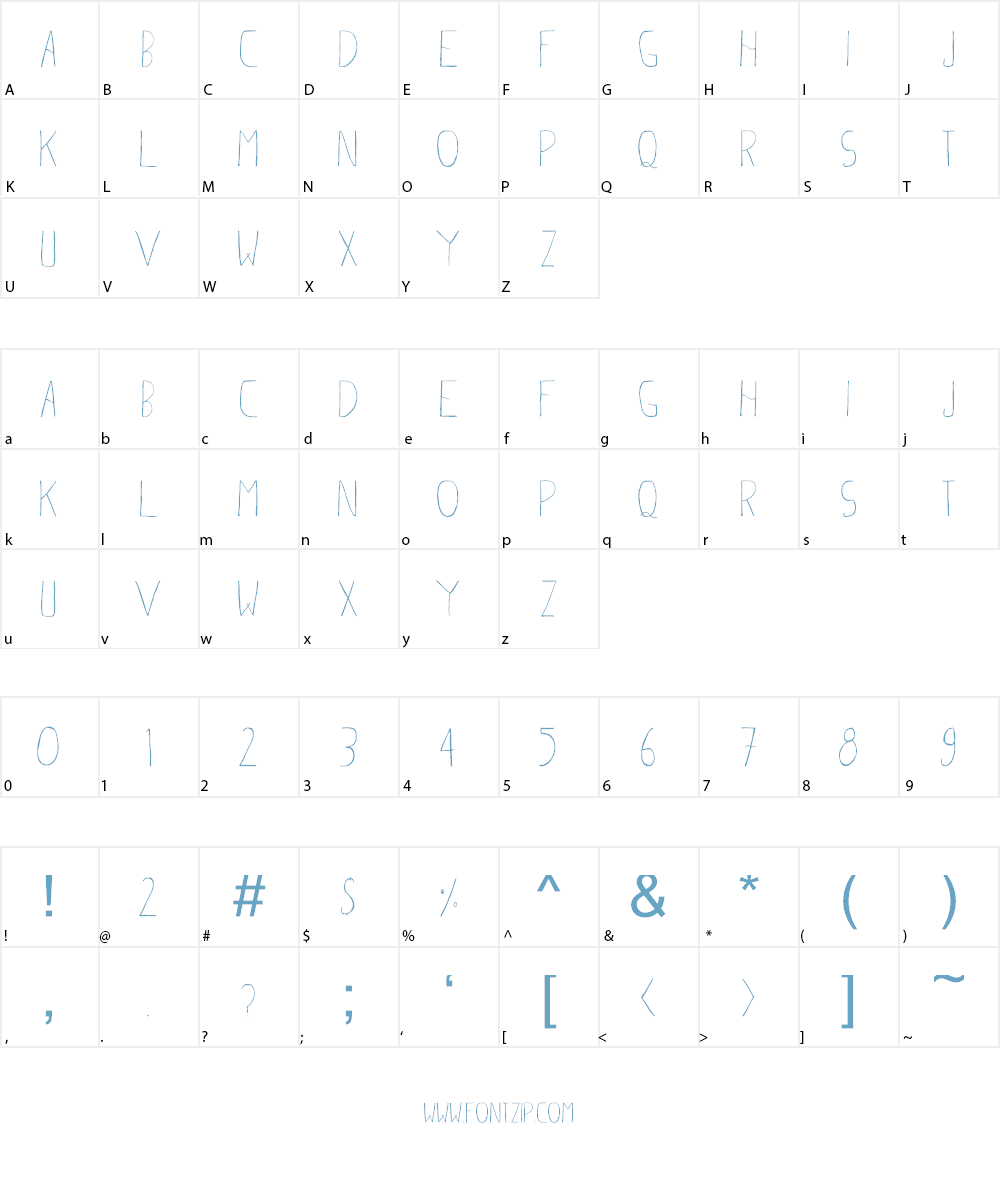
Thanks for checking out Ahsan Creative! A fabulously fun yet elegant display font with tons of energy, allowing you to create beautiful hand-made typography in an instant.